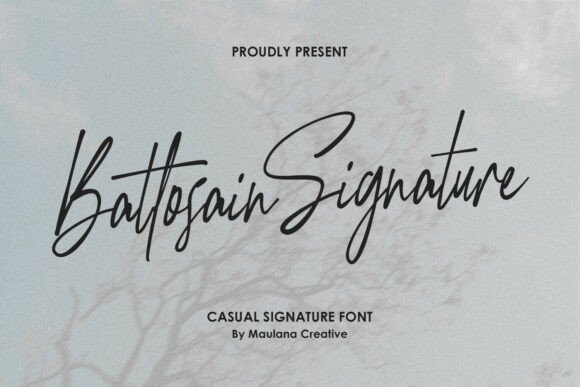
Creating a Personal Touch with Typography
Have you ever been scrolling through social media, and a beautifully crafted brand logo or announcement stops you in your tracks? It’s the combination of stunning visuals and elegant typography that grabs our attention and leaves a lasting impression. For designers, creating that perfect balance between style and substance can be a challenge, but with the right tools, it’s within reach.
Enter the Battosain Signature Font, a modern, handcrafted script font designed to infuse your projects with a touch of personal elegance and effortless charm. This casual signature font is perfect for designers looking to create a genuinely human connection with their audience. By incorporating the Battosain Signature Font into your designs, you can add a romantic, bespoke feel to your special announcements and give your products a premium, artisanal look.
Battosain Signature Font Key Features
- Unique Characteristics: The font features a unique, handwritten style with distinctive flourishes and strokes, making it ideal for signature designs, logos, and creative projects.
- Legibility: Despite its decorative nature, Battosain Signature Font remains highly legible, making it suitable for both digital and print applications.
Battosain Signature Font Review
Overall, I think the Battosain Signature Font is a great addition to any designer’s toolkit. The unique blend of modern and vintage elements makes it stand out in a crowded market. ✨ Here are some things that work well:
- The font’s versatility is impressive, suitable for a wide range of applications, from logos to body text.
- The subtle texture adds a touch of sophistication and visual interest.
- The font is highly customizable, making it easy to adapt to different brand identities.
However, like any font, Battosain Signature Font has its limitations. ⚠️ Here are a few things to keep in mind:
- The font may be too ornate for some projects, making it difficult to read at smaller sizes.
- The texture can sometimes make the font appear busy or overwhelming.
- The font may not be suitable for extended text, as it can become tiresome to read.
Despite these limitations, I think the Battosain Signature Font is a great choice for designers looking to add a unique touch to their projects. With careful usage and consideration of the font’s strengths and weaknesses, it can be a valuable addition to any design arsenal.
The Battosain Signature Font is perfect for: